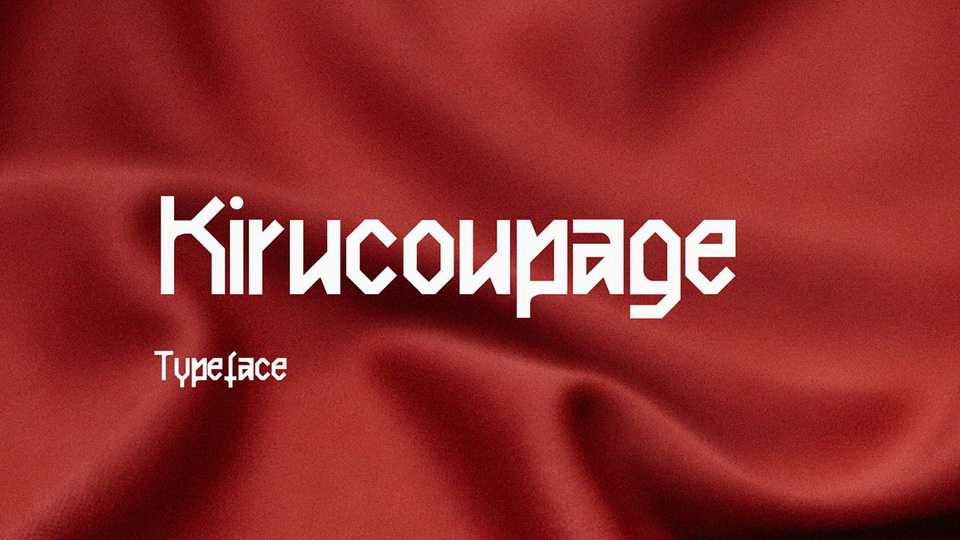
Download Kirucoupage font, a sans serif typeface that stands out due to its tailored, razor-sharp and bold yet slender character. Hence why Kirucoupage typeface is suitable for both text and decorative use.
Designer: Jan Henkel